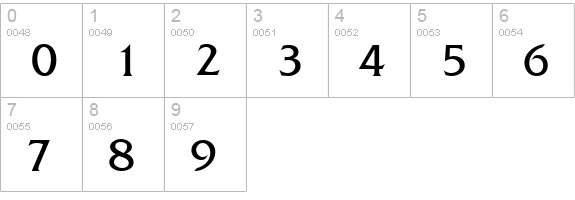
FritzQuad font is a modern and versatile typeface that exudes sophistication and elegance. With its clean lines and geometric shapes, this font is perfect for a wide range of design projects, from branding to editorial design. The sleek and contemporary look of FritzQuad font makes it a popular choice for designers looking to add a touch of class to their work. What's even better is that FritzQuad font is completely free to download at FontsMarket.com! This means you can enhance your projects with this stylish font without having to spend a dime. Whether you're working on a website, a poster, or a logo, FritzQuad font will elevate your design and make it stand out. So why wait? Download FritzQuad font today and take your designs to the next level!